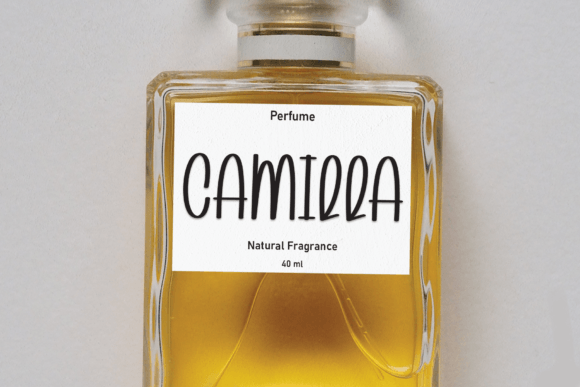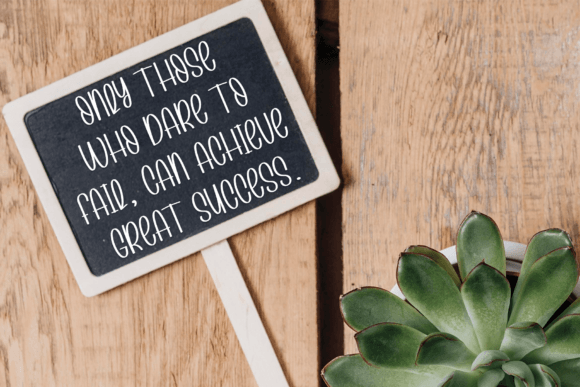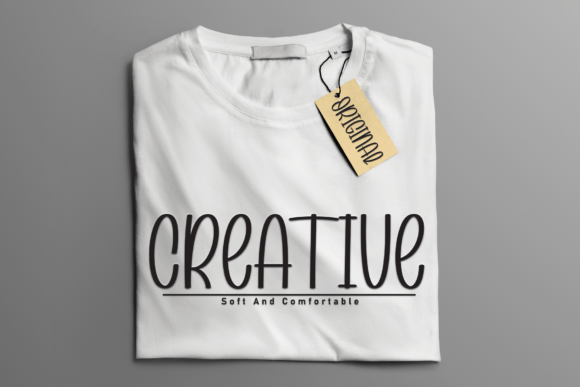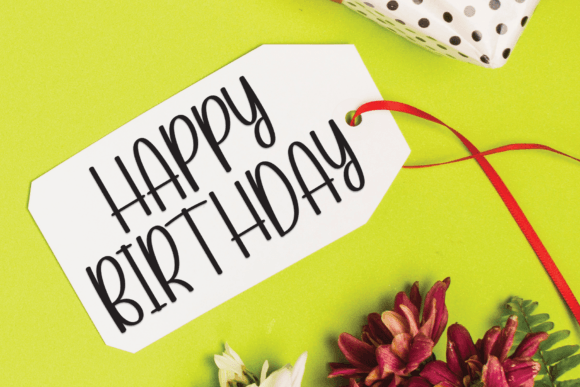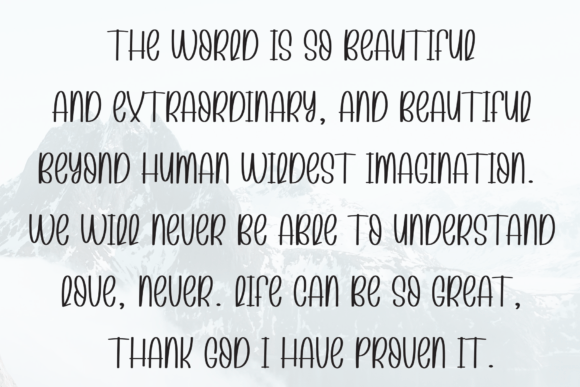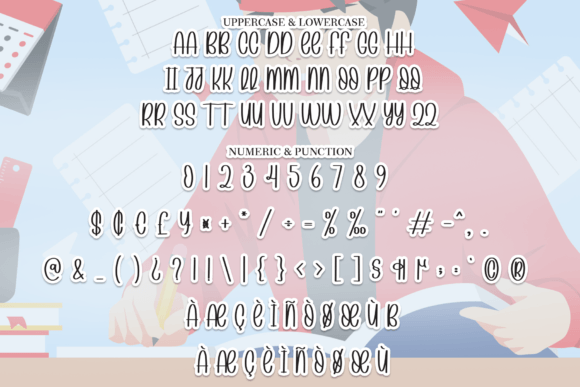
Introduction to Holiday Homework Font
Holiday Homework is a sweet and friendly handwritten display font.
Cute and fun, this font is ideal for writing wedding invitations, cards, or any other design that might need a fun touch .
Key Features of Holiday Homework Font